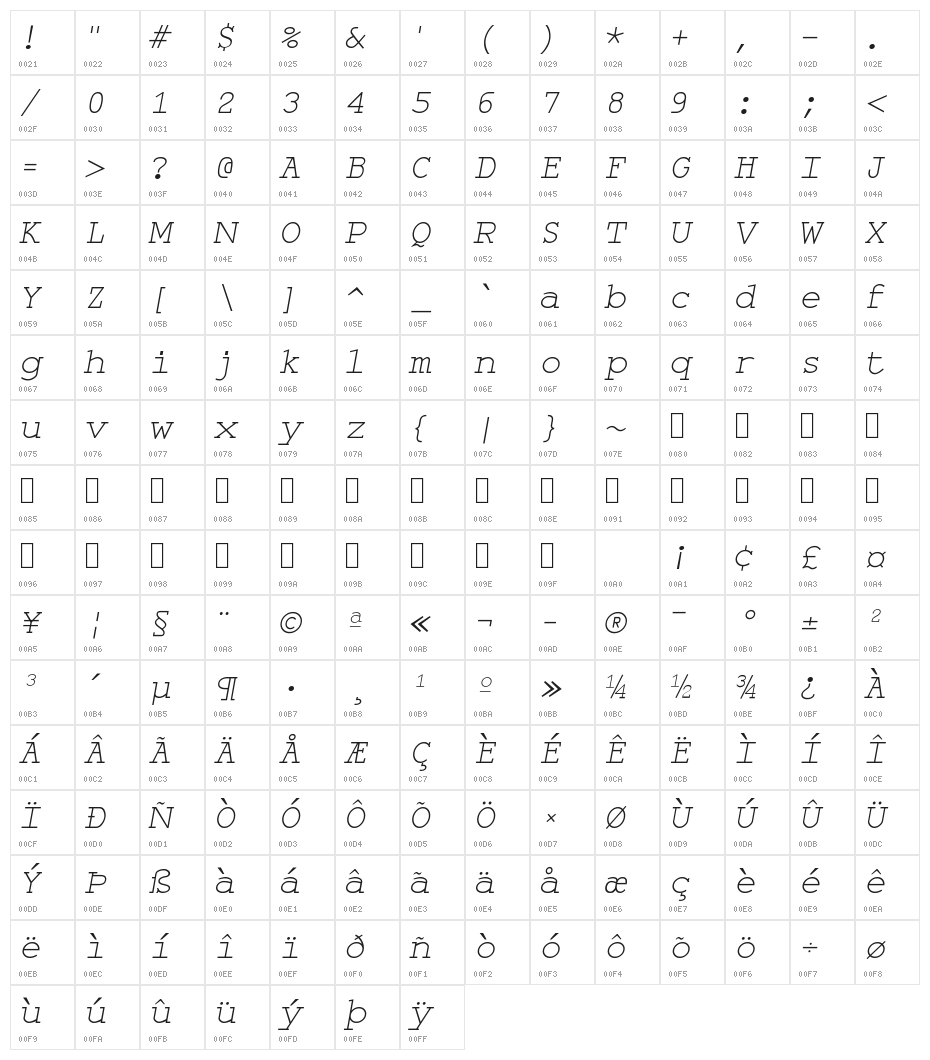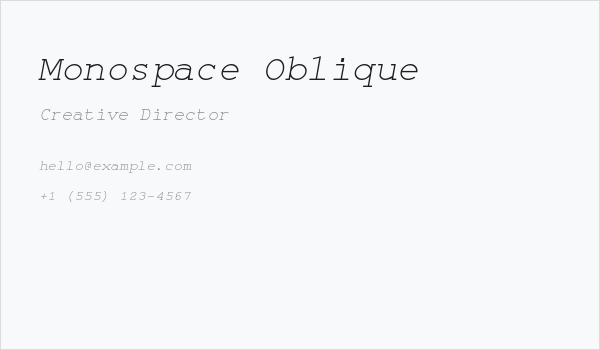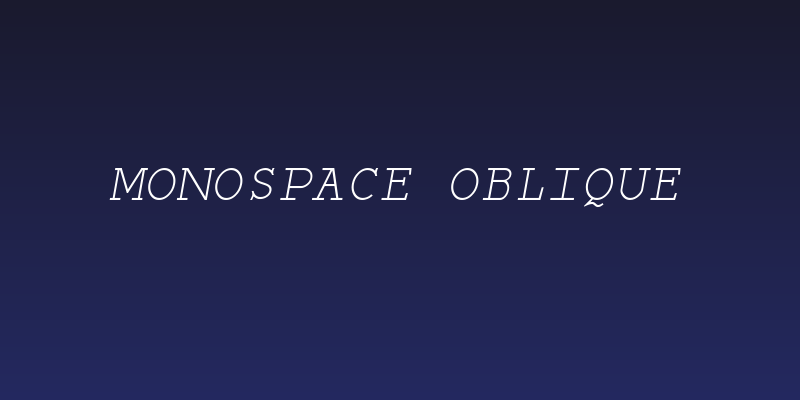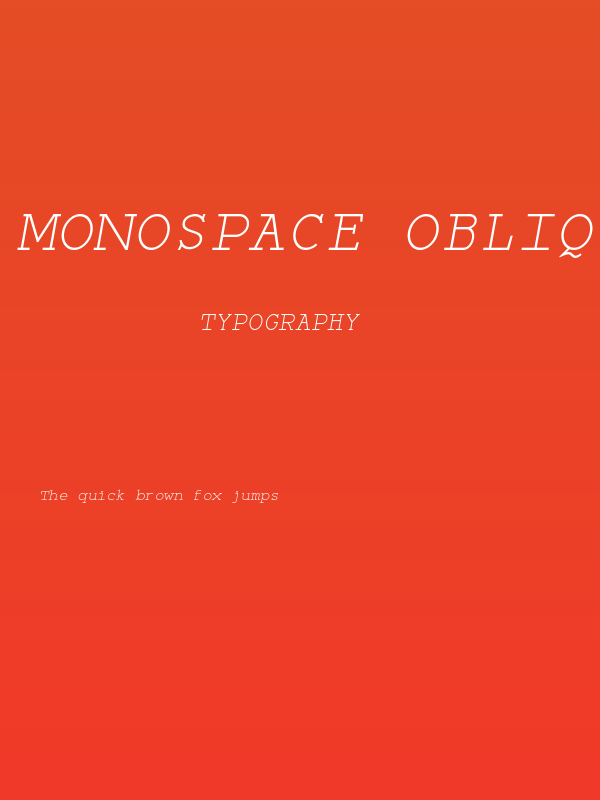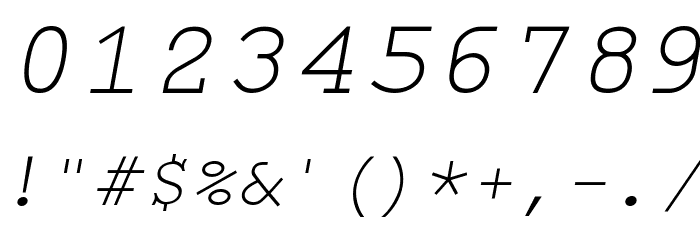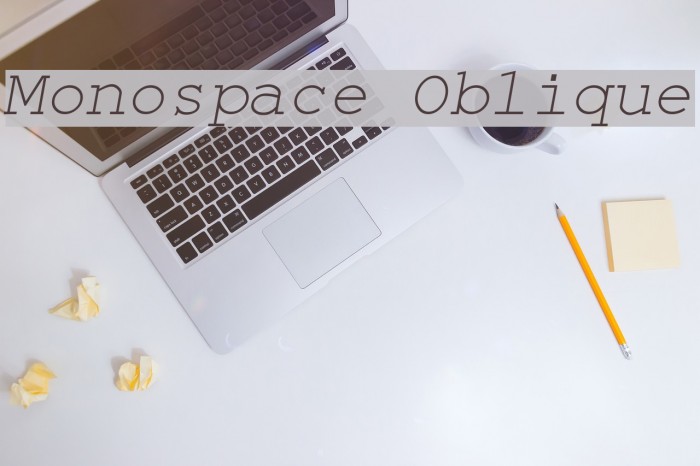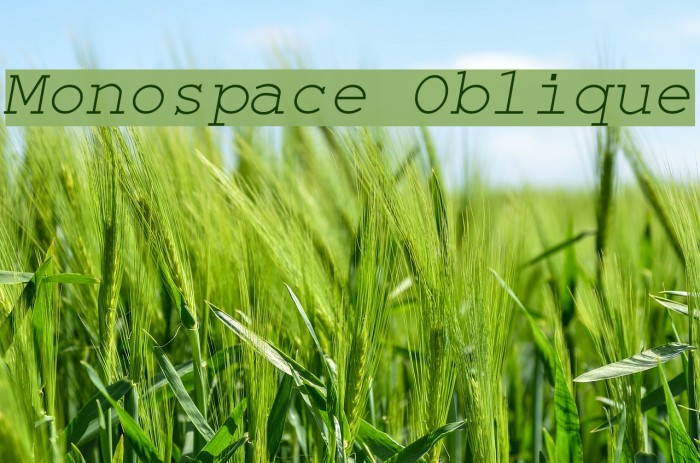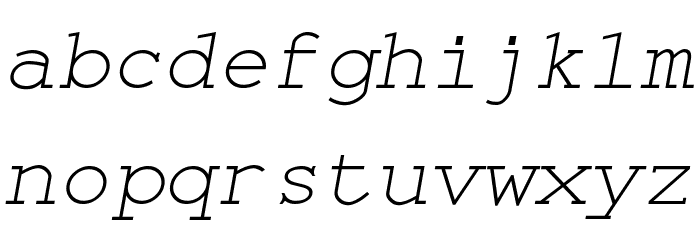
Monospace Oblique Font
Monospace Oblique Description
This font features a consistent monospace design with an oblique slant, giving it a dynamic and modern appearance. Each character maintains equal width, ensuring uniformity and readability, which is typical of monospaced fonts. The oblique style adds a sense of motion and elegance, making it suitable for both technical and creative applications. The characters are well-defined with clean lines and minimal contrast, providing clarity and precision. The font includes a full set of uppercase and lowercase letters, numerals, and a variety of special characters, making it versatile for various uses.
| Use Case | Coding, Technical documentation, Creative design |
| Proposed Projects | Ideal for coding environments, technical documentation, creative design projects, and modern branding. |